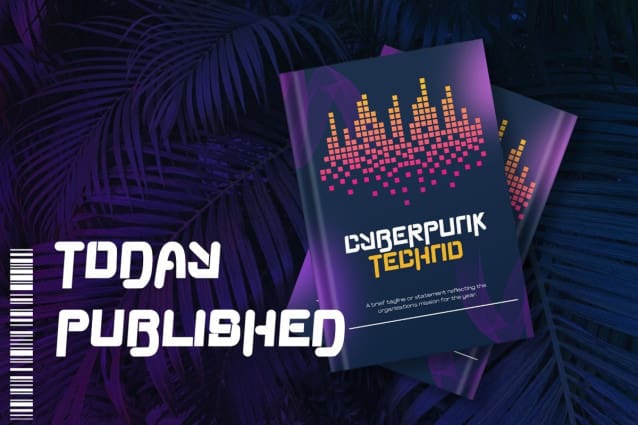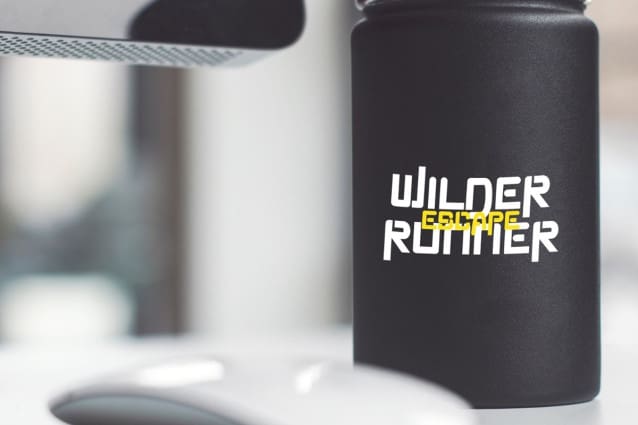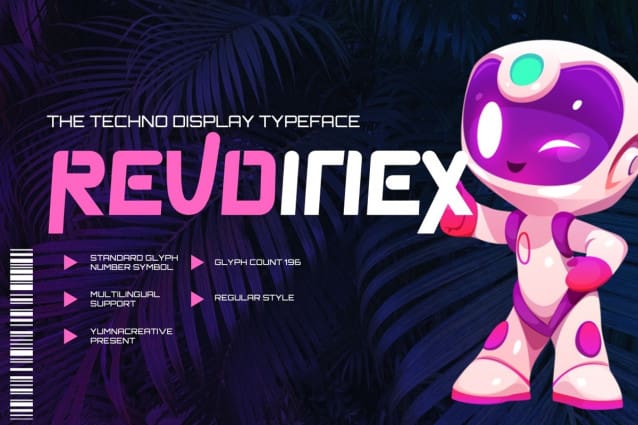
Revoinex Futuristic Font
Revoinex Futuristic Font is a futuristic font, a font inspired by the visual of technology that we can find from logo, sci-fi movies, games, and the present gadgets. Designed with minimalist style and unique letterforms, a perfect choice to use on logos, labels, posters, packaging, books, movies, presentations, games, and much more!